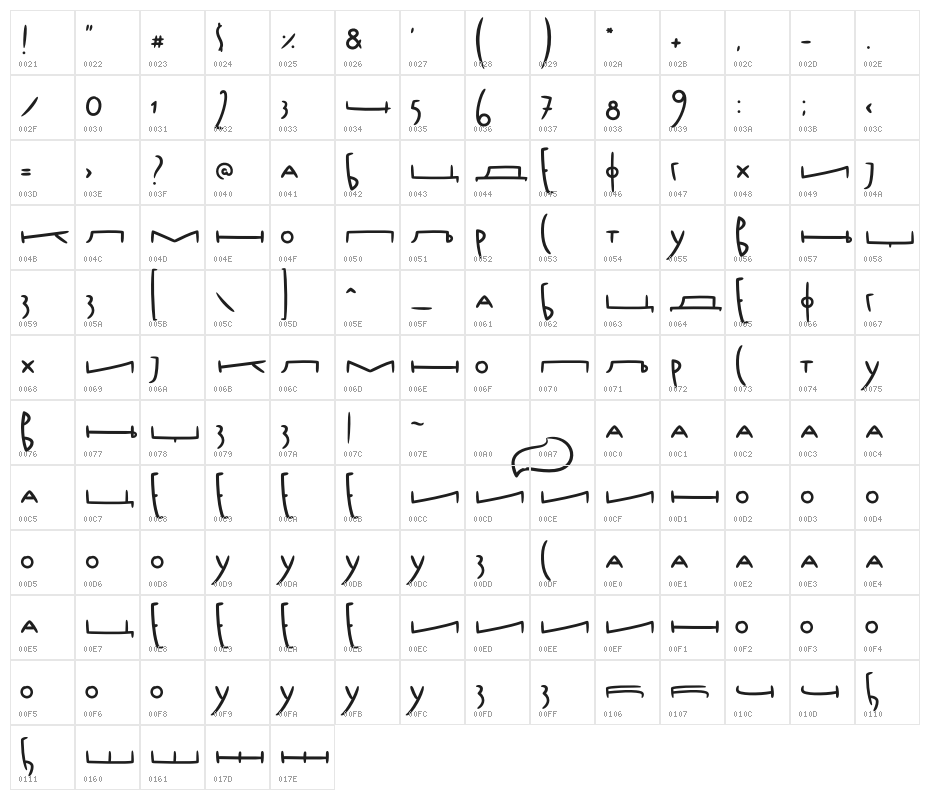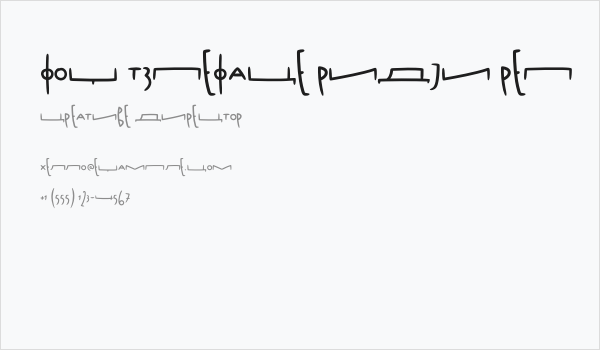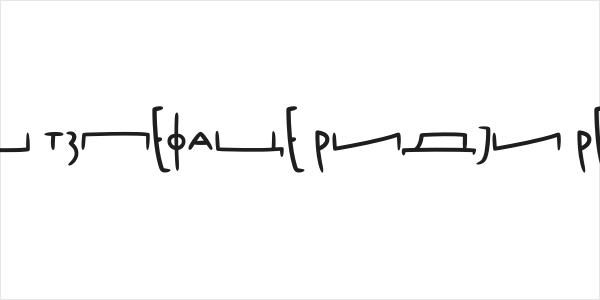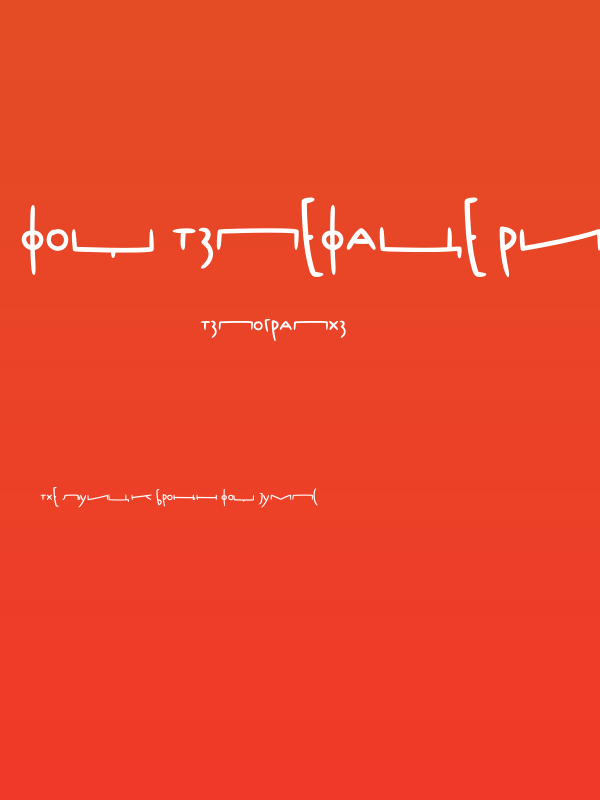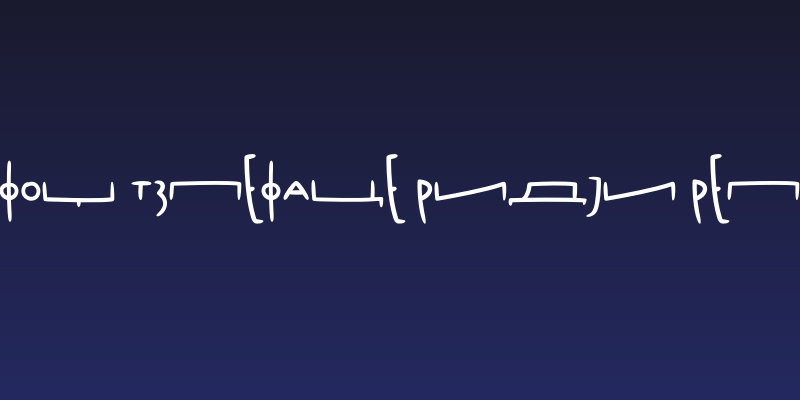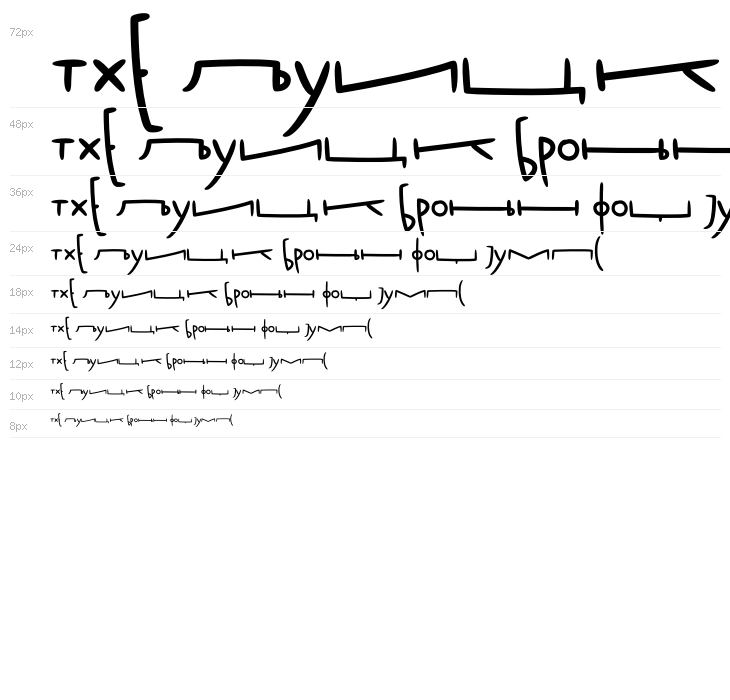
Fox Typeface Ridji Rep Font
Fox Typeface Ridji Rep Description
This font features a unique and playful design with a hand-drawn aesthetic. The characters are characterized by their irregular, whimsical strokes and varying line thicknesses, giving them a lively and dynamic appearance. The uppercase and lowercase letters maintain a consistent style, with some letters featuring extended ascenders and descenders. The numerals and special characters follow the same playful theme, adding to the font's overall charm. This typeface is perfect for projects that require a touch of creativity and individuality.
| Use Case | Logos, Posters, Invitations |
| Proposed Projects | Ideal for children's books, creative posters, playful branding, and artistic invitations. |